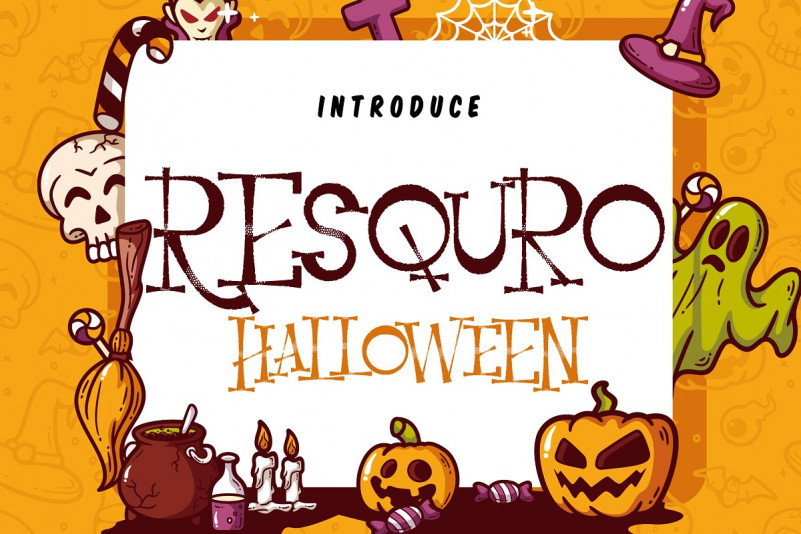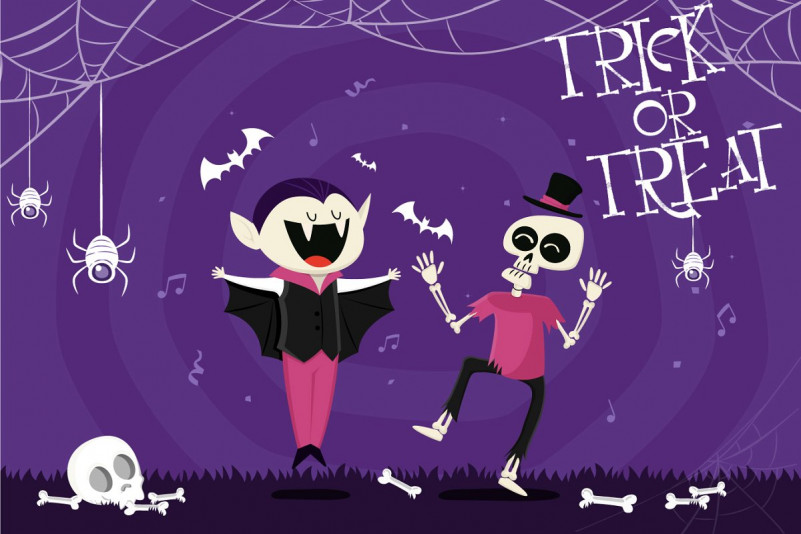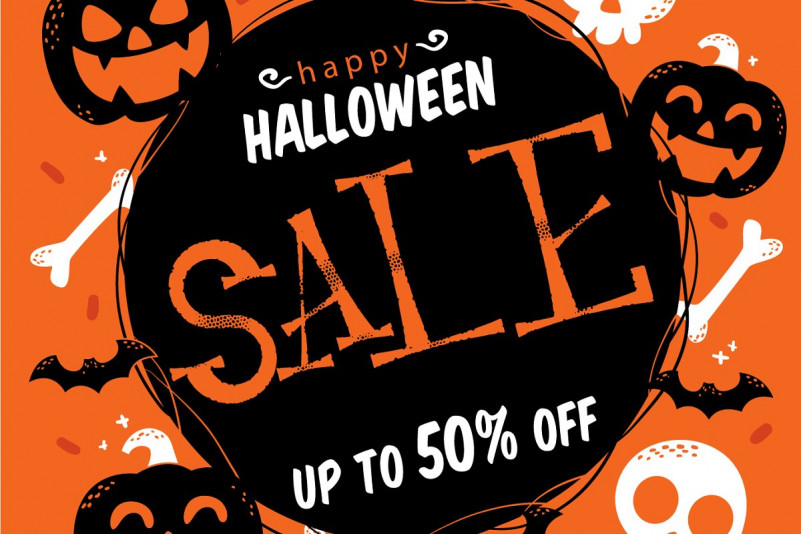
Resquro Halloween Font
Resquro Halloween | Decorative Font with a calligraphy style, So beautiful on invitation like greeting cards, branding materials, business cards, quotes, posters, and more!